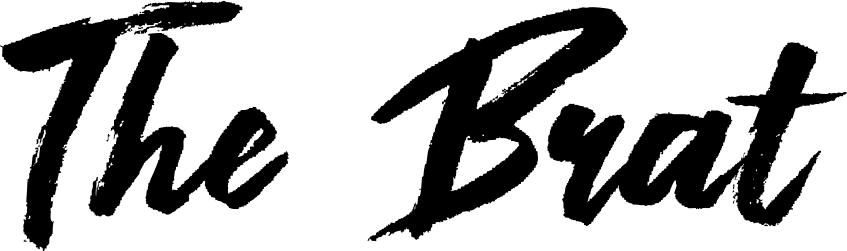
The Brat Font
The Brat is a brush font that was designed with bold but eroded letters to create that brush effect. This font with its unique style can be a perfect choice for a variety of projects like posters, websites, logos, etc. T…
The Brat is a brush font that was designed with bold but eroded letters to create that brush effect. This font with its unique style can be a perfect choice for a variety of projects like posters, websites, logos, etc. This font comes with both the uppercase and lowercase of the alphabets, the numbers, and a few punctuation marks.